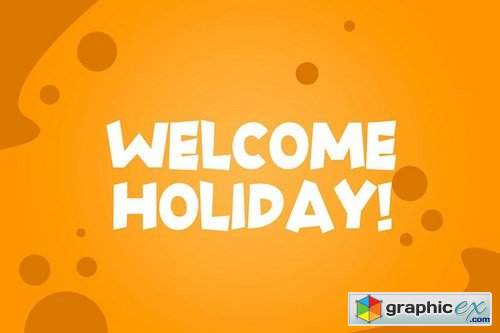
Roley Poley - Playful Font
Roley Poley font is a playful font. It has cartoon, kids, cute, and bold. It’s a great font for fashion, apparel projects, signature, album cover, logo, branding, magazine, social media, & advertisements, but also works great for other projects.